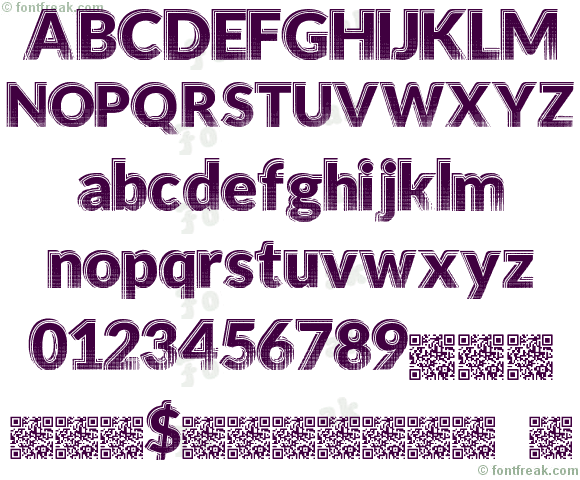
HotTropics
About HotTropics
Discover the vibrant and unique HotTropics font by Xerographer Fonts, a standout typeface that captures the essence of tropical flair. This decorative display font features bold letterforms characterized by varying stroke weights and an eye-catching design that evokes a sense of fun and creativity. The unique contrast within the letters adds depth, making it perfect for grabbing attention while maintaining readability. The generous spacing between characters enhances legibility, allowing each letter to breathe and making the overall design feel balanced and approachable.
HotTropics is an excellent choice for various applications, especially in creative and playful contexts. It's particularly suited for wedding invitations that seek to convey a relaxed yet elegant vibe. The font can also breathe life into movie posters, giving them a retro tropical feel that draws viewers in. Additionally, restaurant menus featuring exotic dishes can benefit from its lively character, enticing customers with a taste of what's to come. Content creators and small business owners will find this font ideal for social media graphics, promotional materials, and branding elements that require a touch of whimsy.
What truly sets the HotTropics font apart is its ability to infuse personality into any design. Its playful yet sophisticated aesthetic makes it a memorable choice that can elevate your work. Whether you're crafting a colorful event invitation or designing an eye-catching advertisement, the HotTropics font will ensure your message stands out in style. Don't miss the chance to incorporate this captivating typeface into your next project.